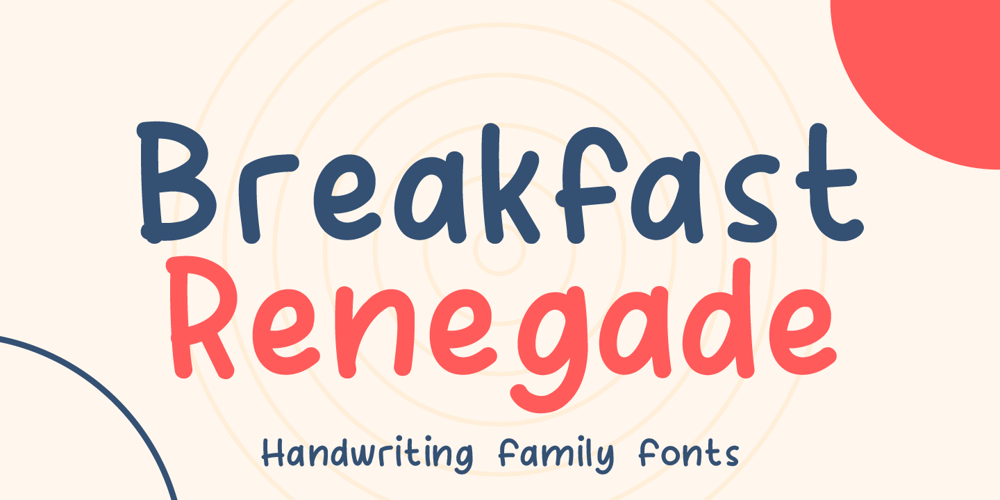
Breakfast Renegade
Breakfast Renegade font
Breakfast Renegade Font Family was designed by Stefie Justprince and published by Crumphand. Breakfast Renegade contains 9 styles and family package options. Hello, here’s the new Handwriting font Breakfast Renegade.Breakfast Renegade is a family fonts. The style inspired by child writing.Easy to read, good kerning, easy to access multilingual What’s Included Inside The Fonts ? Uppercase Lowercase Symbols Numbers European Multilingual Thank You, Regads